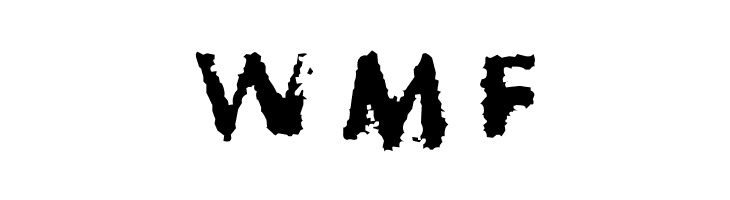
A bold, distressed brush-style font with an urban, graffiti-like appearance.
A bold, distressed font with a rugged, graffiti-like style.
A rugged, distressed font with a chaotic, hand-drawn style.
A bold, chaotic display font with a punk rock aesthetic and distressed look.